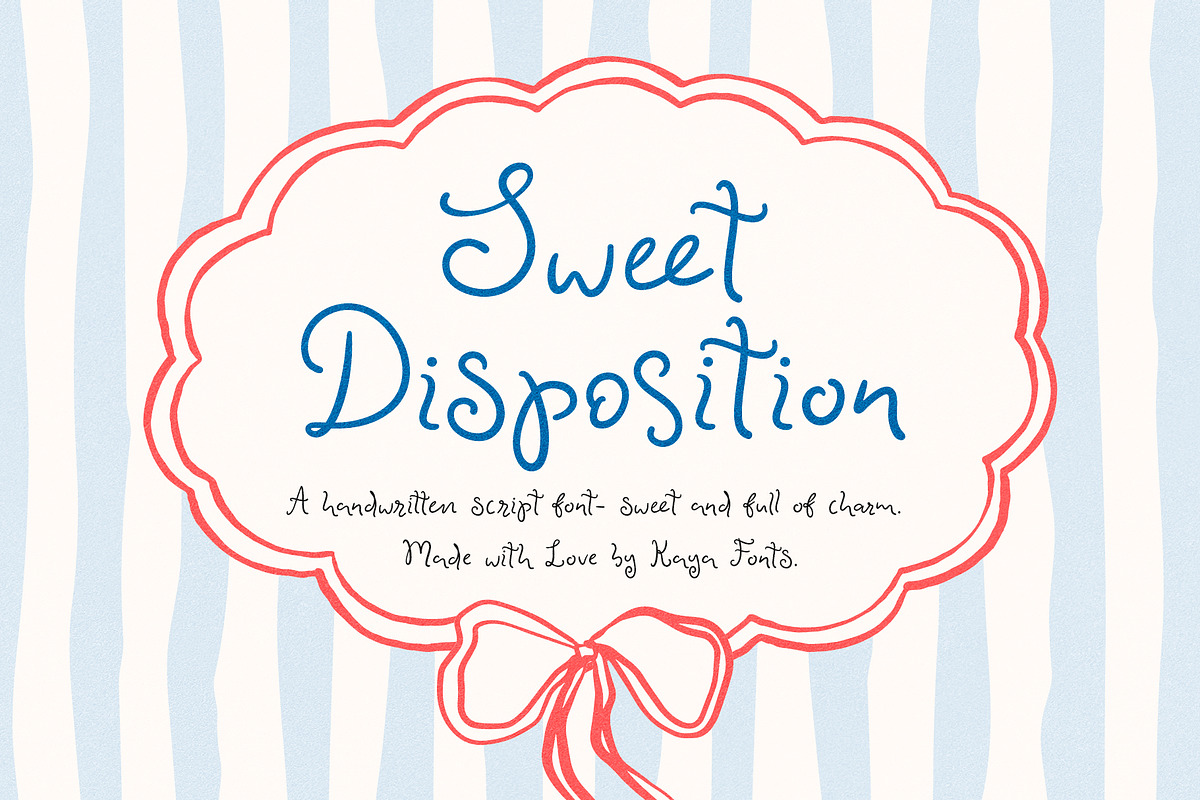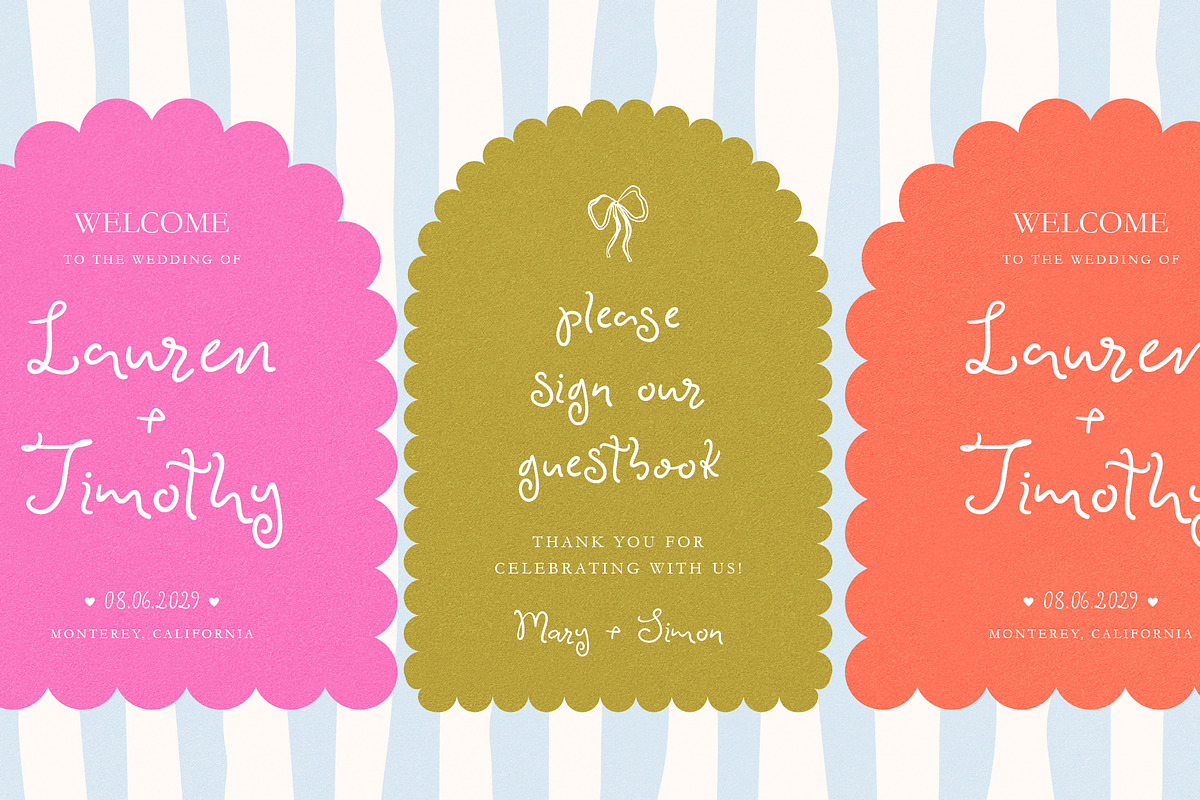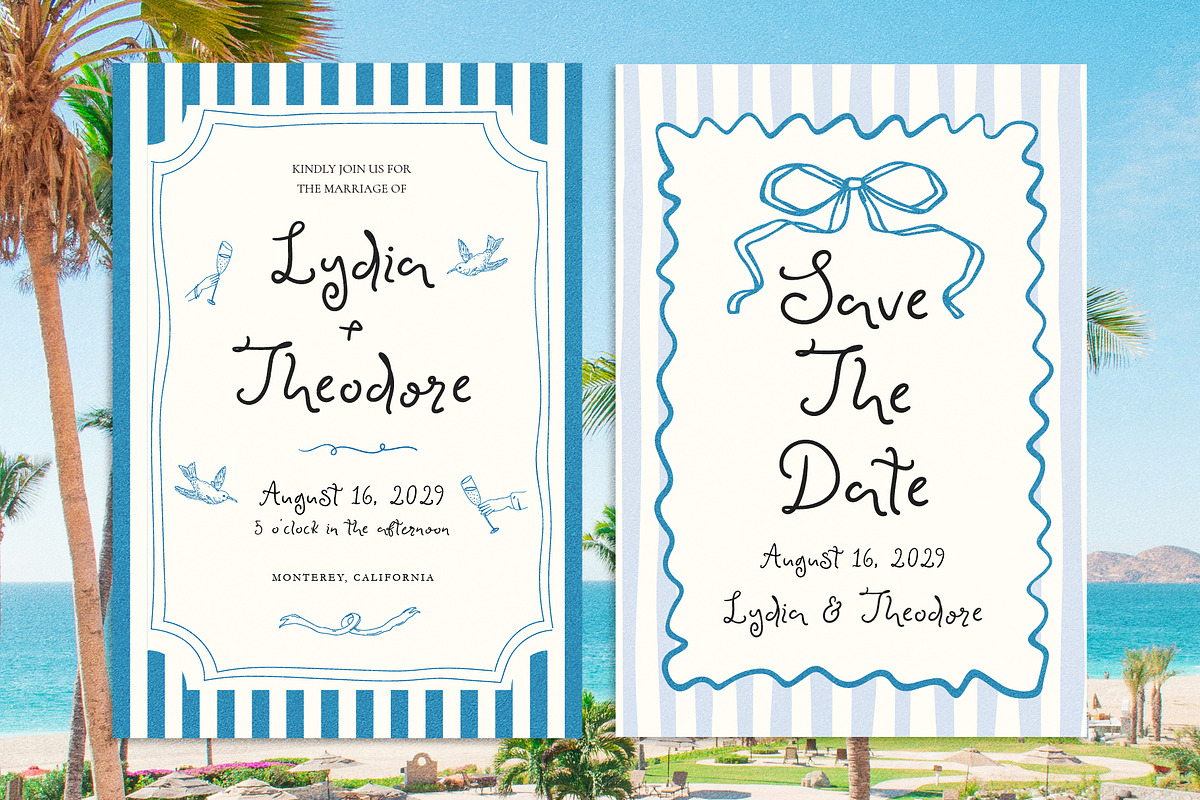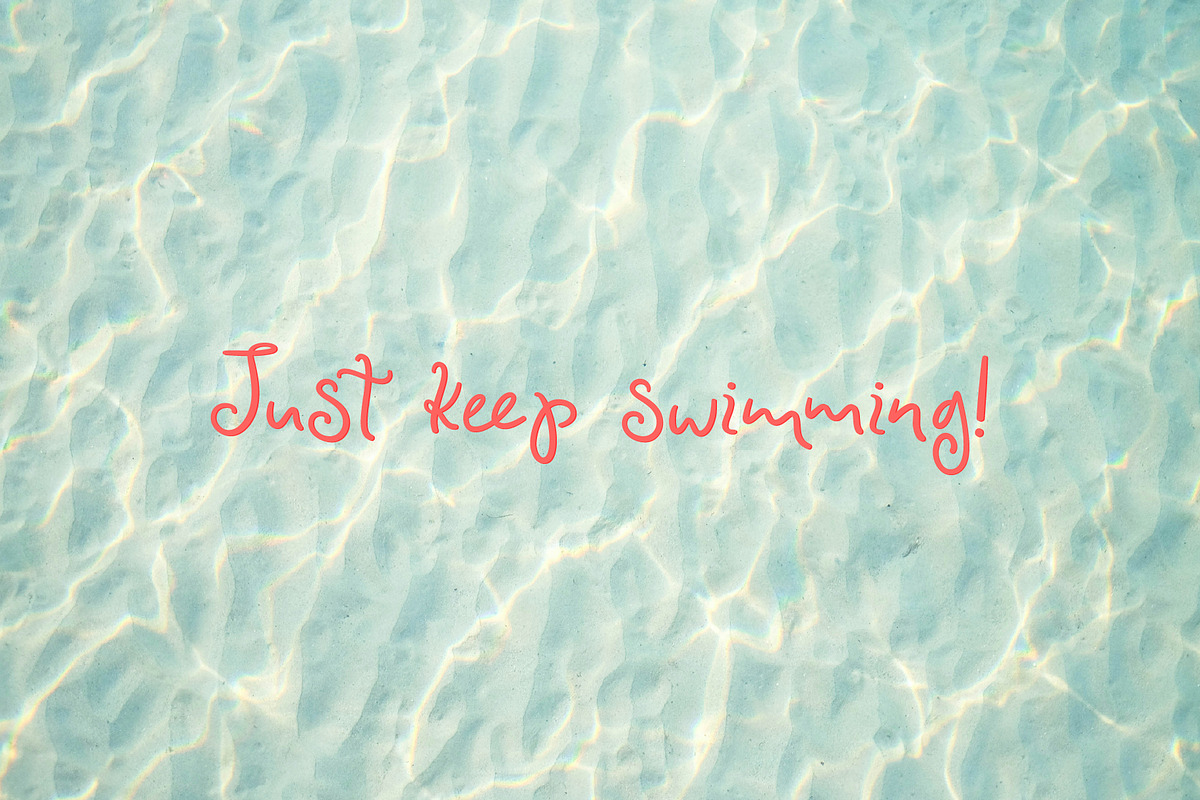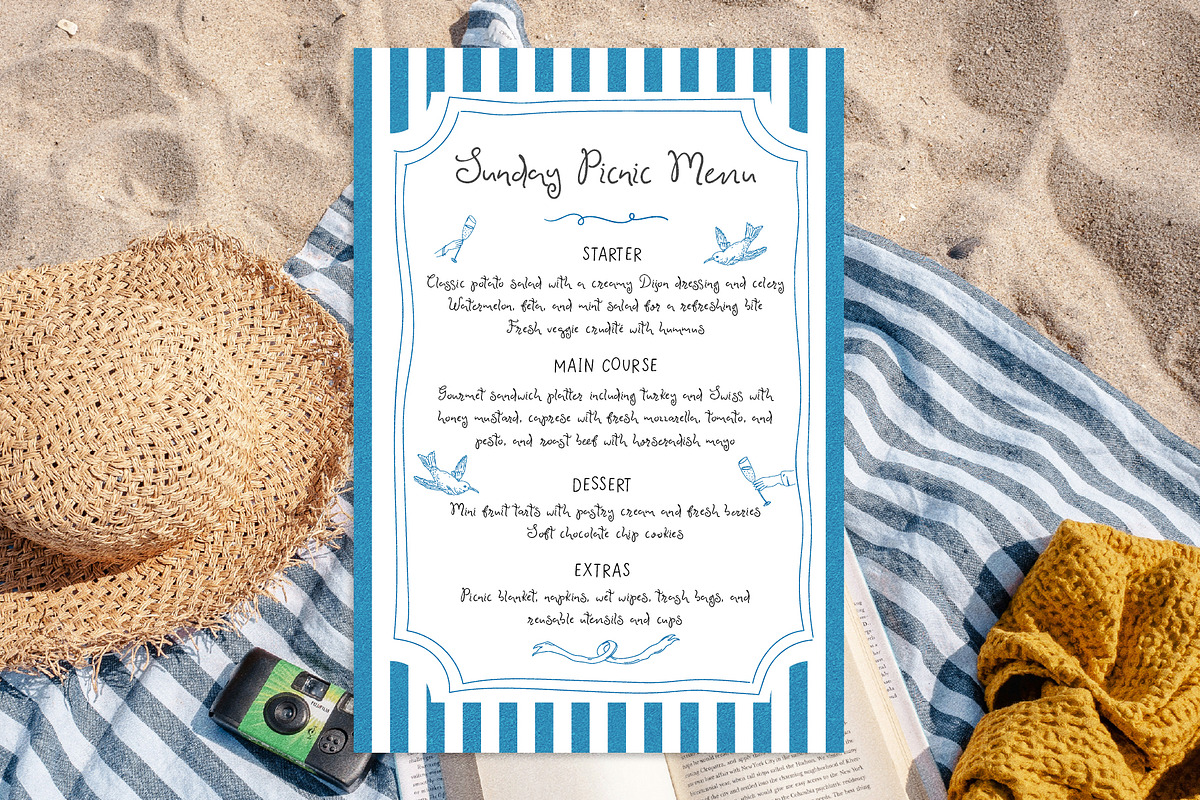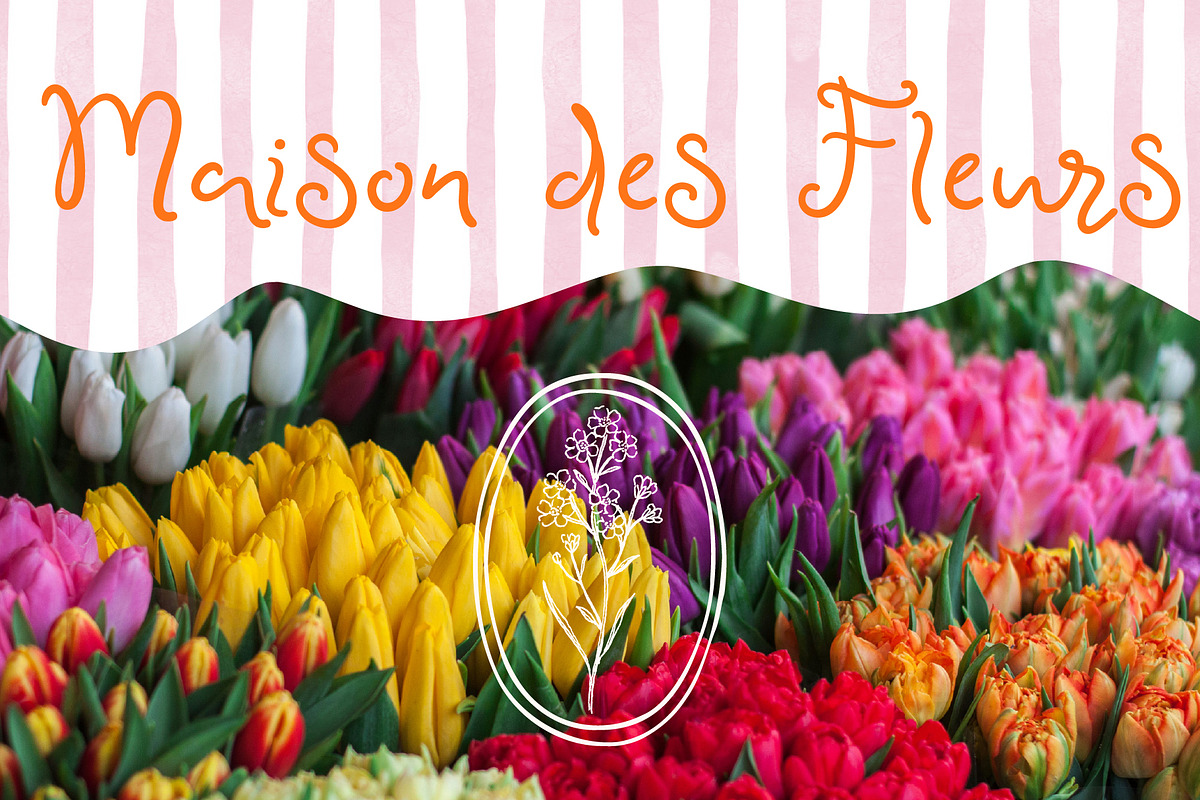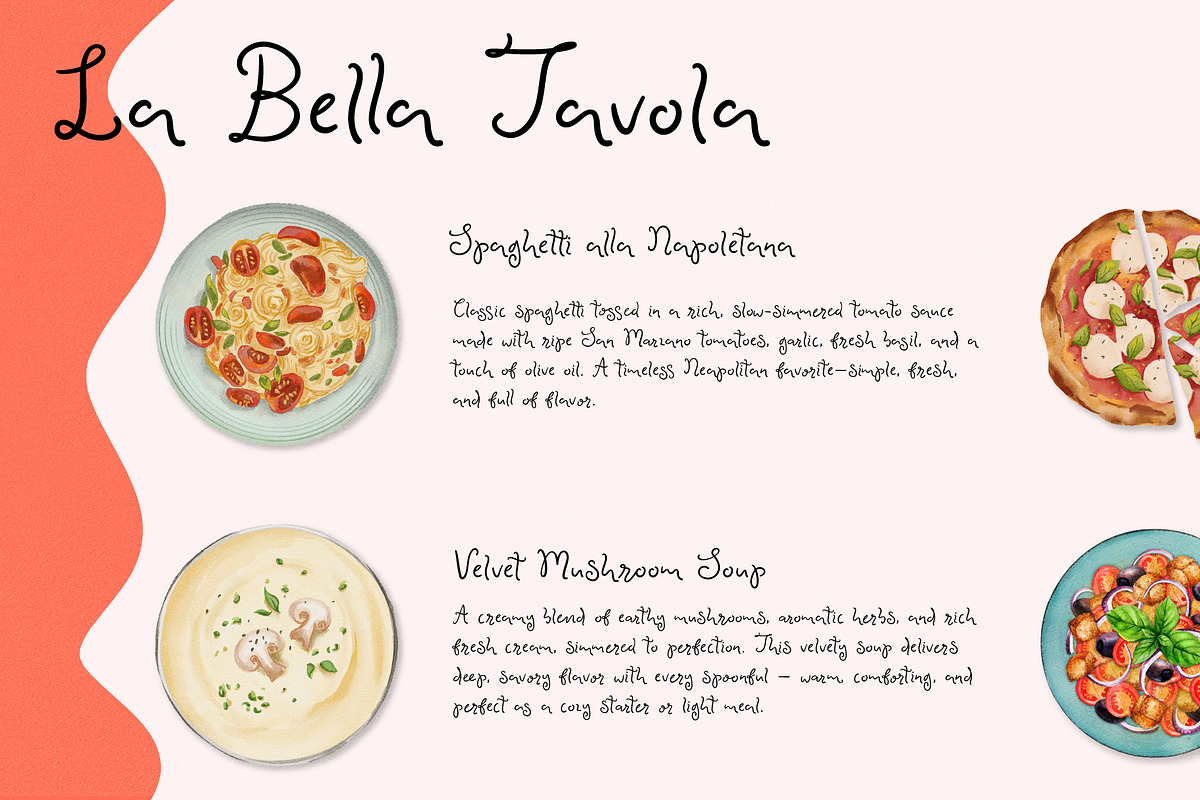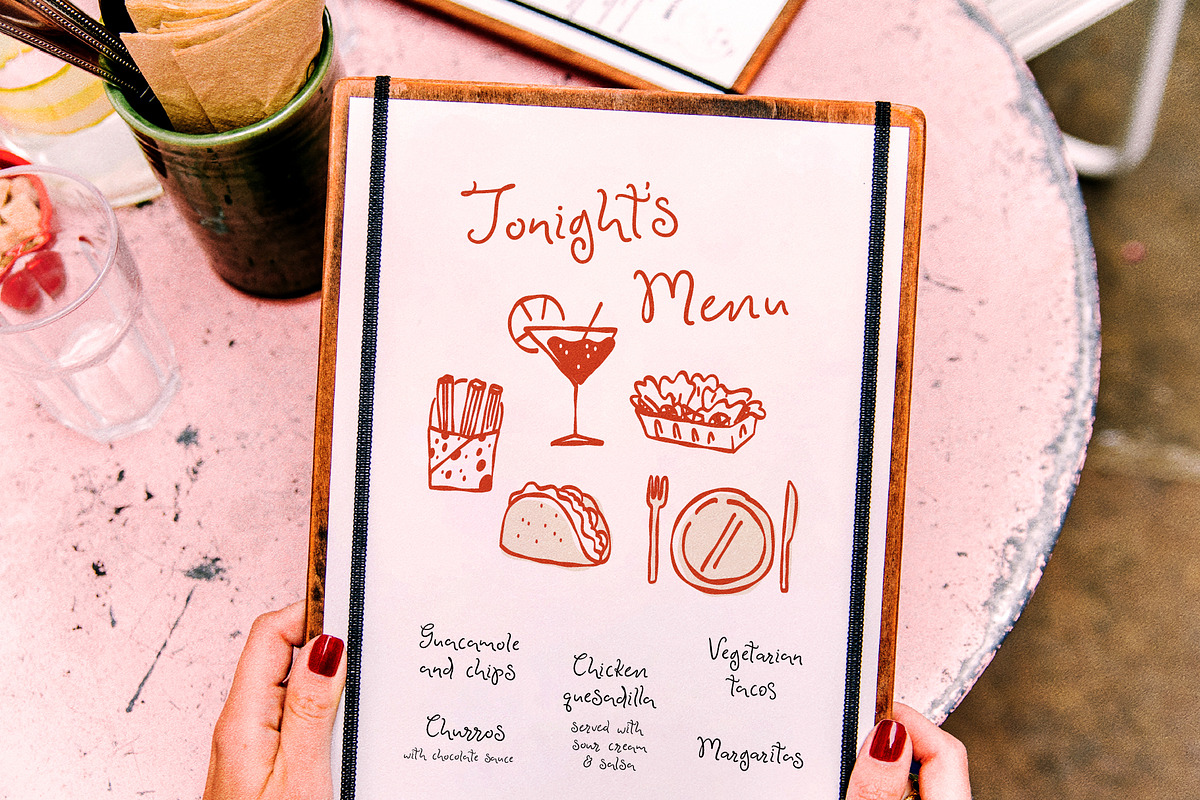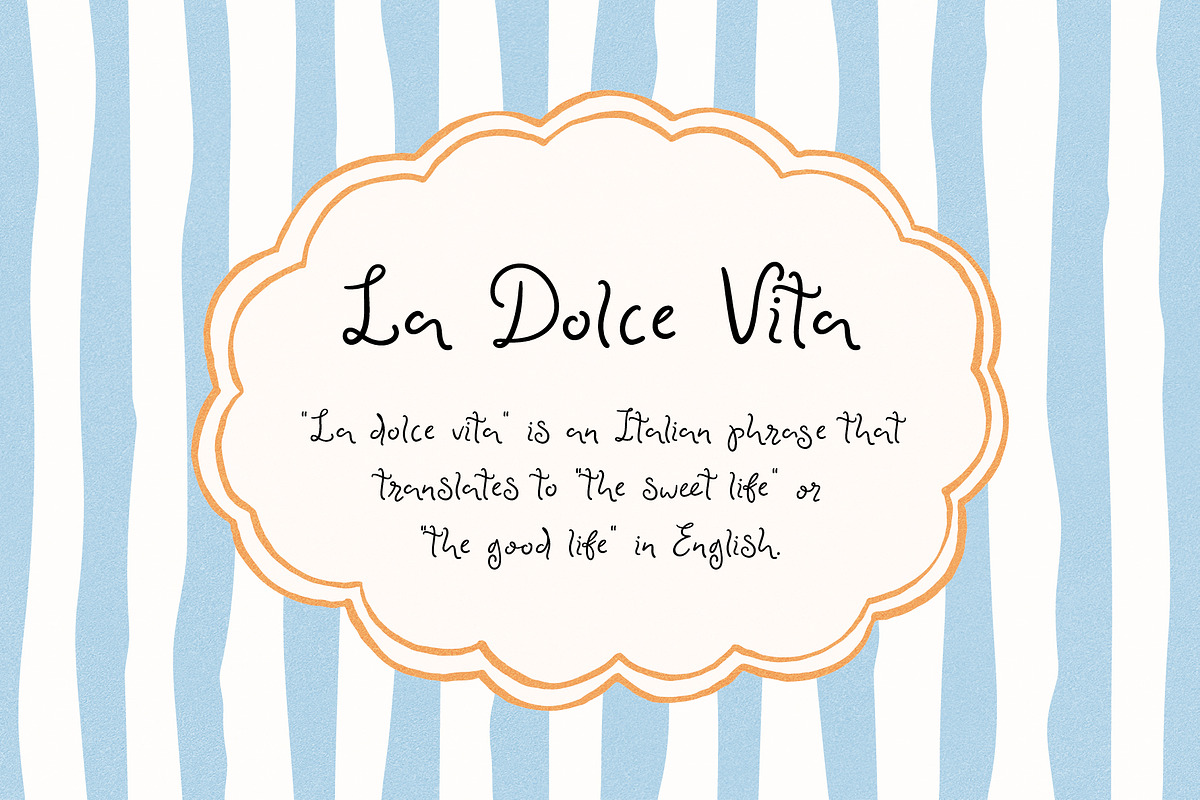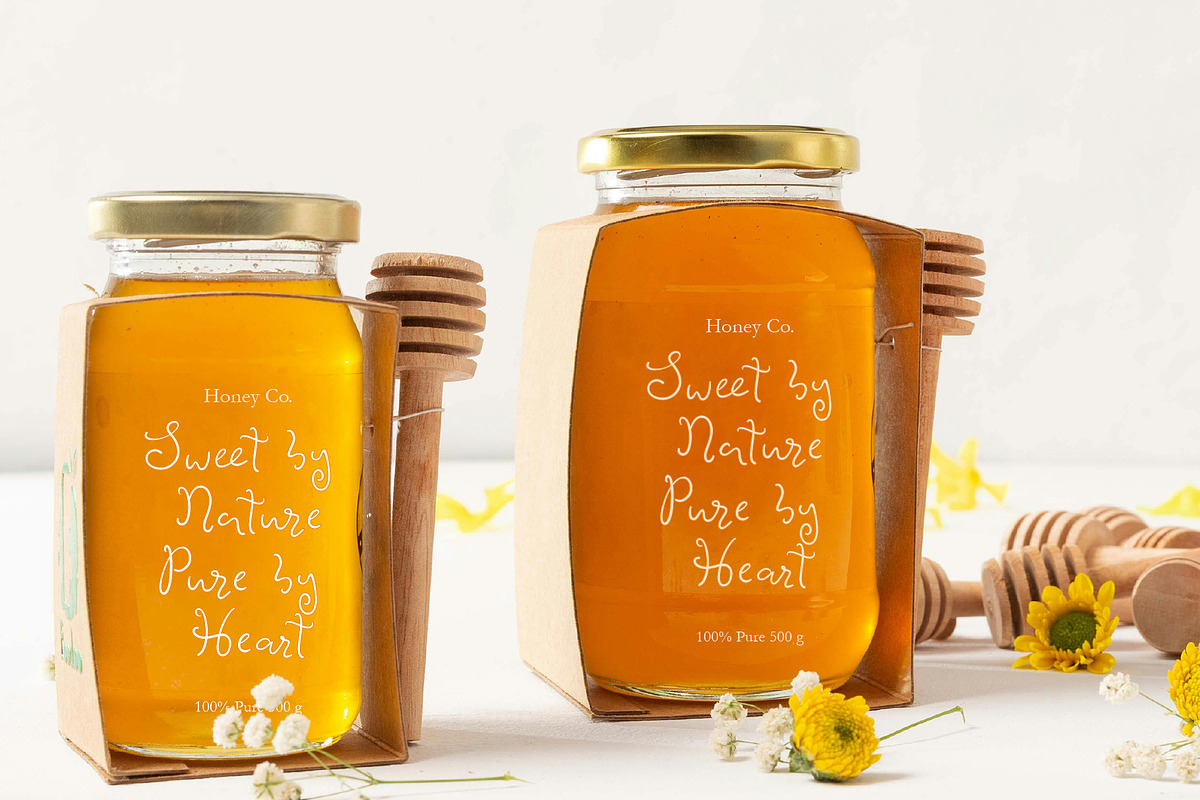
Sweet Disposition Handwritten Script
Sweet Disposition is a charming handwritten script with soft curves and a playful flow. Perfect for adding a romantic, creative flair to invitations, logos, social media graphics, and more. With every letter, it tells a story full of warmth and imagination.